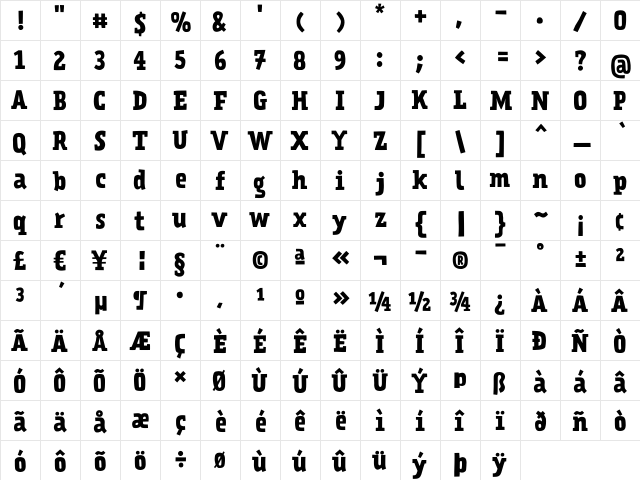
PraterSerifTwo-Bold Bold
| Foundry | Steffen Sauerteig, Henning Wagenbreth, published by Fontshop International for the FontFont library |
Design Context for PraterSerifTwo-Bold Typeface
PraterSerifTwo-Bold brings classic typographic sensibility to the table — its serifs and measured letterforms reflect centuries of print heritage. The heavy weight commands attention and anchors typographic hierarchies.